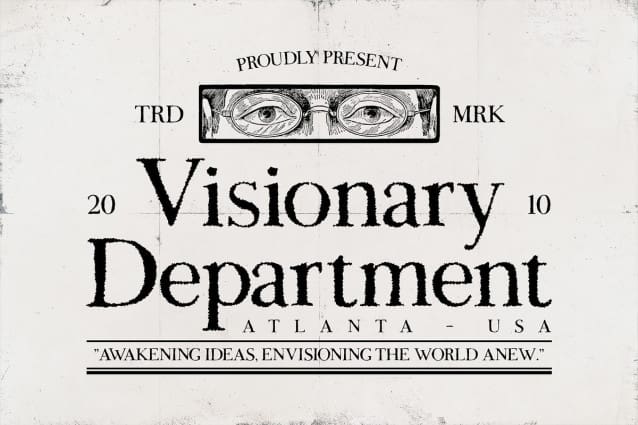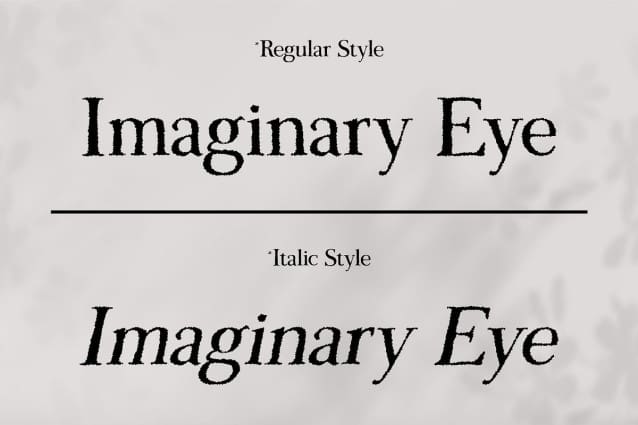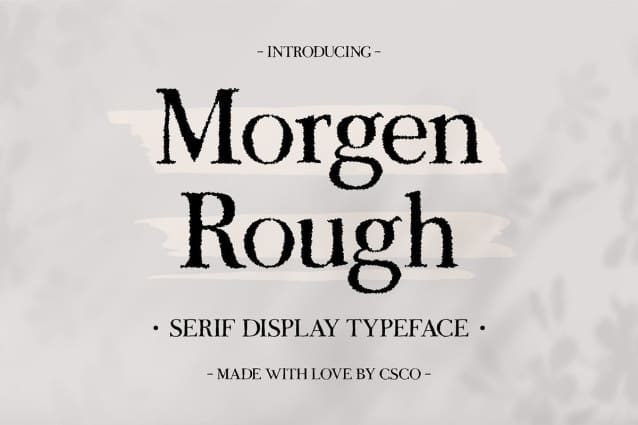
Morgen Rough Font
Morgen Rough Font is a modern serif font that embodies elegance through its graceful shapes and meticulous detailing. The font’s clean lines and well-defined curves convey sophistication and refinement, making it an ideal choice for various design applications. Wrapped in a rough effect, Morgen Rough introduces a unique character that blends refinement with irregularity, resulting in a striking and memorable impression.
Captivating Visual Appeal This font’s distinctive combination of elegance and texture provides a captivating visual appeal, allowing it to stand out in a variety of contexts. The rough effect adds depth and personality, making Morgen Rough an excellent option for projects that aim to convey both class and creativity. Whether used in headings, body text, or decorative elements, this font enhances the overall aesthetic while retaining clarity and readability.
Versatile Applications for Modern Designs Morgen Rough is perfectly suited for a range of design applications, including branding, invitations, and marketing materials. Its refined yet textured appearance makes it a fantastic choice for projects that require a touch of sophistication and uniqueness. Whether you’re creating luxurious branding for a high-end product or designing elegant invitations for a special occasion, Morgen Rough provides the versatility needed to bring your vision to life.